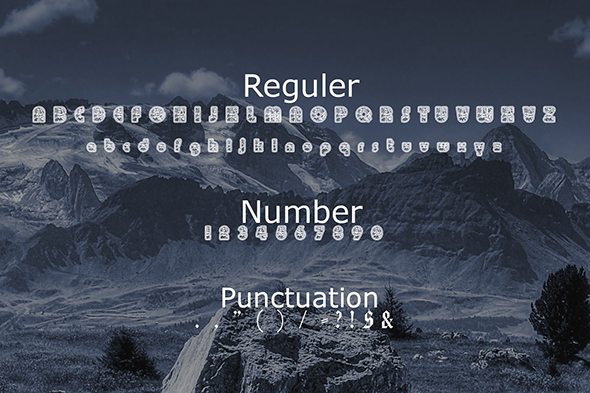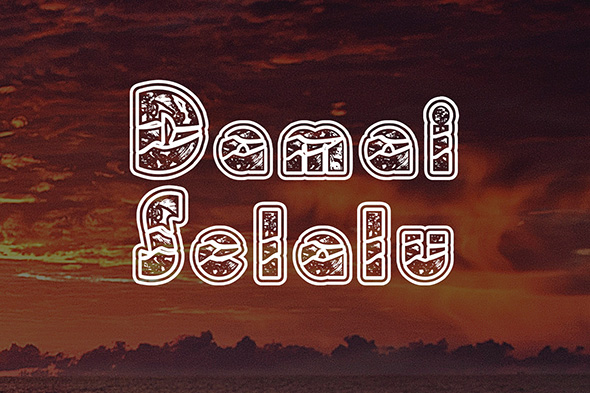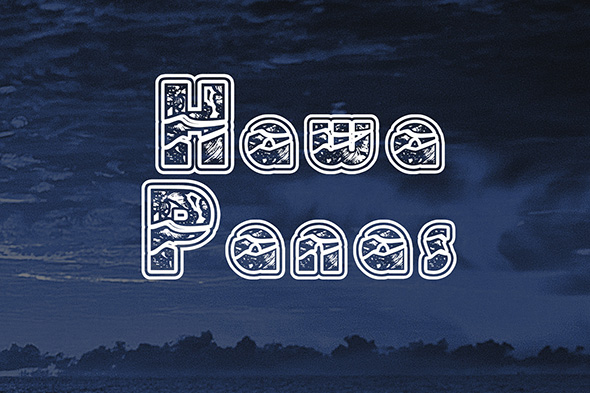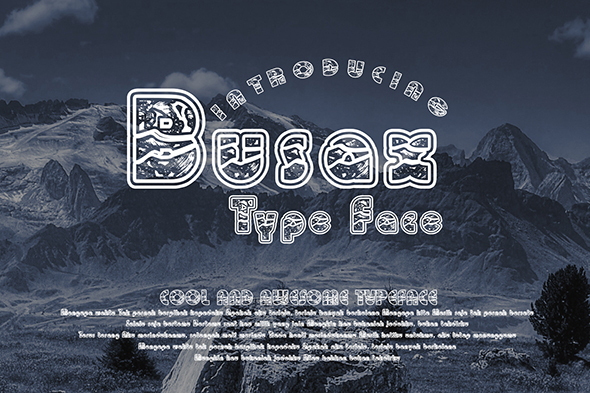
Discover the Creative Potential of Busax Font
Are you a designer, crafty person, or simply someone who loves to express their creativity? Look no further than the Busax Font, a truly unique typeface that can elevate your visual projects to the next level. With its versatility and distinctive charm, Busax is perfect for a wide range of applications, from headlines and book covers to posters, invitations, and more.
What Makes Busax Font So Special?
Busax Font stands out from the crowd with its one-of-a-kind design. Its unique character set and stylish aesthetic make it an excellent choice for anyone looking to add a touch of personality to their work. Whether you’re creating a bold headline, a beautiful book cover, or an eye-catching poster, Busax Font is sure to grab attention and leave a lasting impression.
The versatility of Busax Font is one of its most significant advantages. This typeface can be used for a wide range of creative projects, including:
- Headlines: Make a bold statement with Busax Font’s striking design, perfect for grabbing attention in newspapers, magazines, or online articles.
- Book Covers: Give your book a unique and captivating look that sets it apart from the competition.
- Posters: Create eye-catching posters for events, promotions, or advertisements that showcase your brand’s personality.
- Invitations: Add a touch of elegance and sophistication to your invitations, making them truly unforgettable.
- And much more! From branding and packaging to digital graphics and crafts, Busax Font’s possibilities are endless.
Perfect for Creative Minds
Busax Font is specifically designed for those who like to think outside the box and push the boundaries of creativity. If you’re a designer, crafty person, or simply someone who enjoys expressing themselves through art, Busax Font is the perfect tool to help you bring your ideas to life.
Tips for Using Busax Font
To get the most out of Busax Font, here are a few tips to keep in mind:
- Experiment with different sizes: Busax Font looks great in various sizes, from large headlines to smaller text.
- Play with colors: Try pairing Busax Font with different colors to create unique and eye-catching combinations.
- Mix and match: Combine Busax Font with other typefaces to create a distinctive and visually appealing design.
In conclusion, Busax Font is a truly unique and versatile typeface that offers endless creative possibilities. Whether you’re a designer, crafty person, or simply someone who loves to express themselves through art, Busax Font is the perfect choice for adding a touch of personality to your work. So why wait? Discover the creative potential of Busax Font today and take your visual projects to new heights!